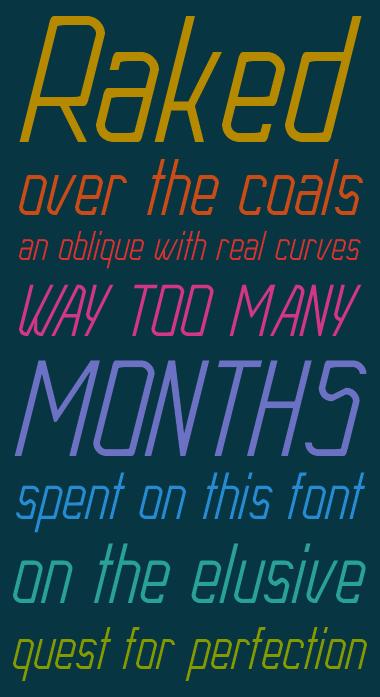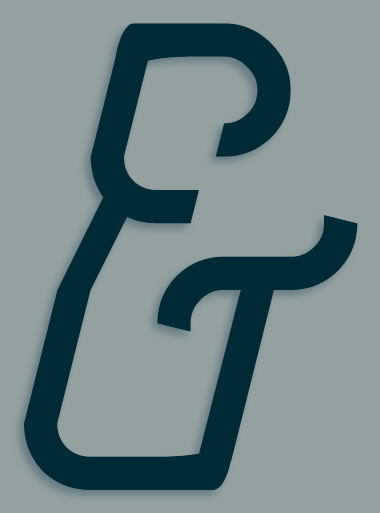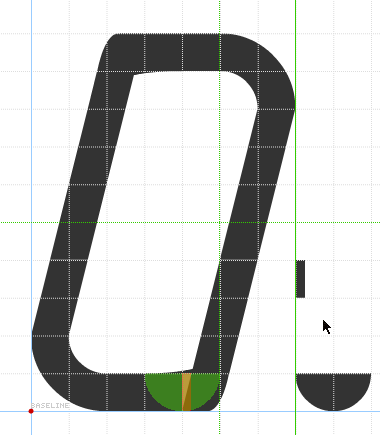
• Filter 2:2 The large, rounded corners are the standard macaroni bricks. The tight, rounded corners are made of several composites and stacked brick combinations. This allows a curve that flows straight into an angle (1:4 in this case). I did not discover this "smooth tight curve to angle" trick. I stole it from Geneus1...thanks!
uuuuh. i very much like this
What a pretty thing!!! Sorry, I've missed it at the beginning!
A great piece of work!
Wow. I should really read descriptions instead of glazing over them. I see how it's done. Delete my last comment, if you would. Thanks!
Congratulations! FontStruct Staff have deemed your FontStruction worthy of special mention. “Raked” is now a Top Pick.
Innovative, creative, beautiful ... succcessful! 10/10
I absolutely love this font... great technique behing
Great technique... And innovative!
I'm all for beautiful ampersands and this one is especially nice!
Thank for sharing details of your construction. I'm trying to figure out why you need the half circle in the tight corners, though...
Anyway, this one is a real beauty!
Brilliant. The samples are awesome. & is something else!
@laynecom Thank you. Here is a pic showing what the half circle does. It covers up the little triangle...I could've made an ultra slim rectangle (see the pic), but using the half circle didn't require making a composite.
@minimum Thank you. I think you're the master of samples, so I consider that high praise for mine. :)
Wow! Fantastic sans serif face. It looks every bit very professional. Thank you for sharing behind the scene details. It reveals the hidden complexity and might teach us some useful tricks. 10/10
with best regards. this fontstruction is very
Please hide the comment. I can see that.
@ecluniverso Thanks! It's been a long time since I've looked at this...I wonder what improvements I could make with the latest bricks and fonstruct features.